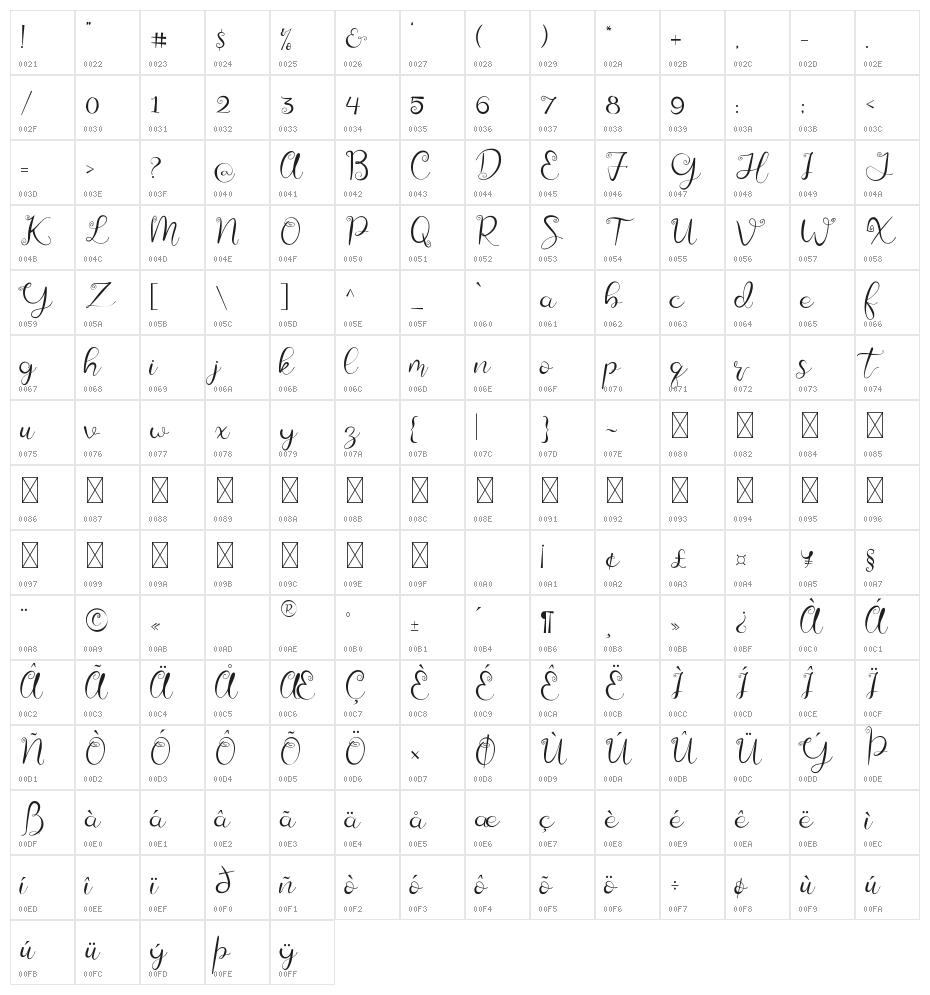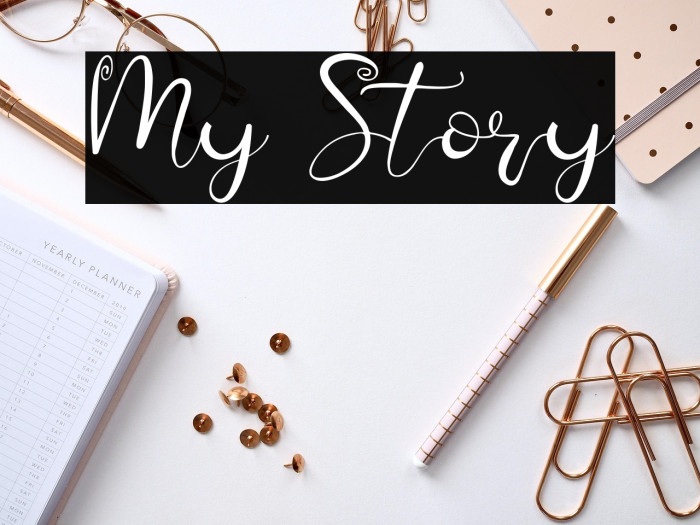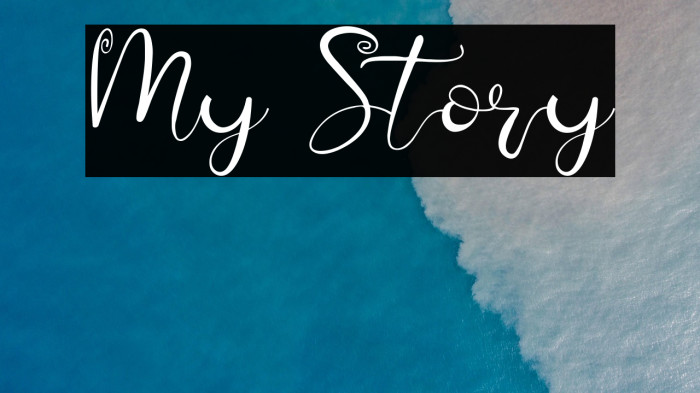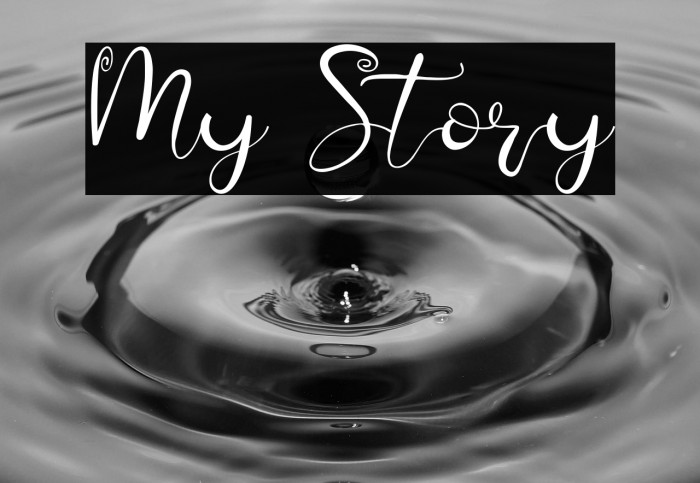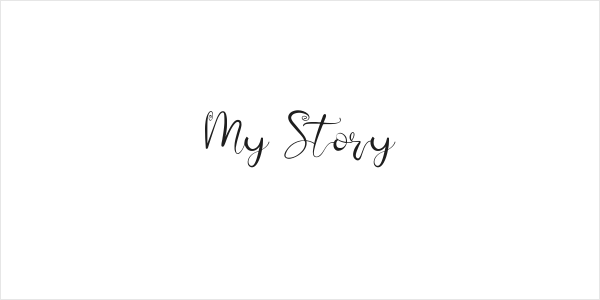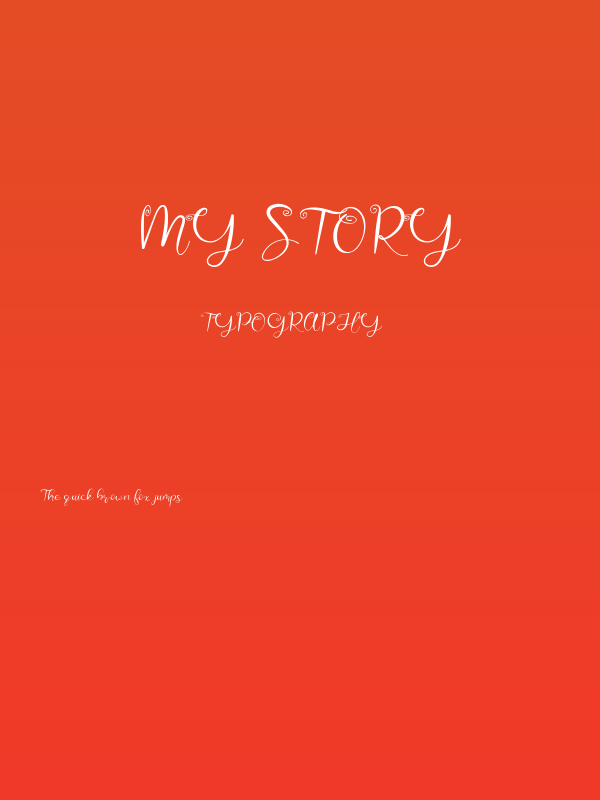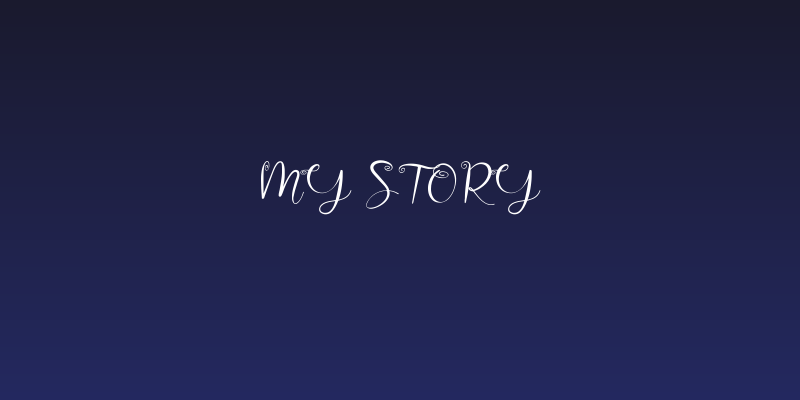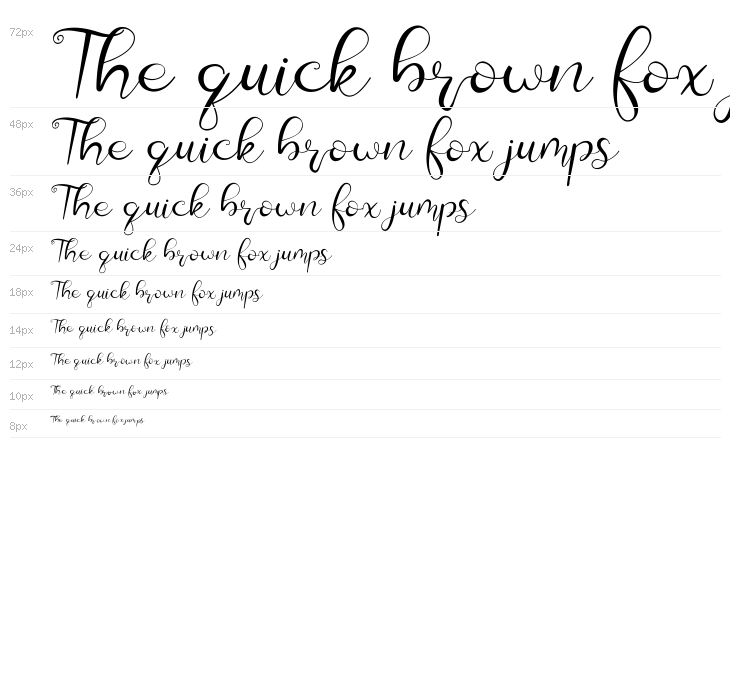
My Story Font
My Story Description
This elegant script font features a whimsical and flowing design, characterized by its intricate swirls and loops. The uppercase letters are adorned with decorative flourishes, adding a touch of sophistication and charm. The lowercase letters maintain a consistent style, with smooth curves and a slightly playful appearance. Numbers and special characters are designed to complement the overall aesthetic, ensuring a cohesive look. This font exudes a sense of creativity and elegance, making it ideal for projects that require a personal and artistic touch.